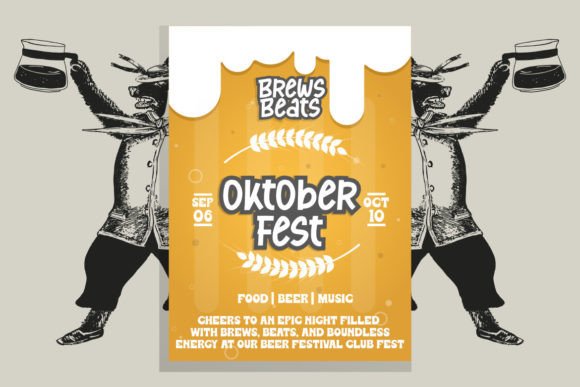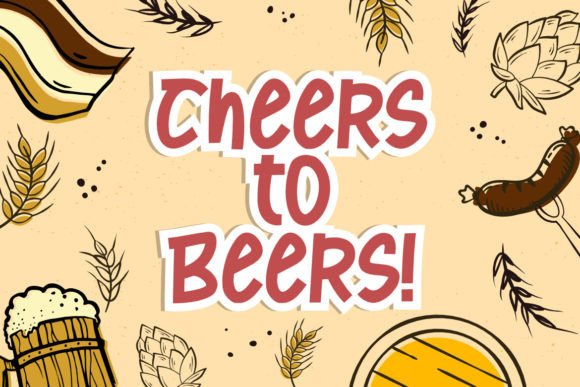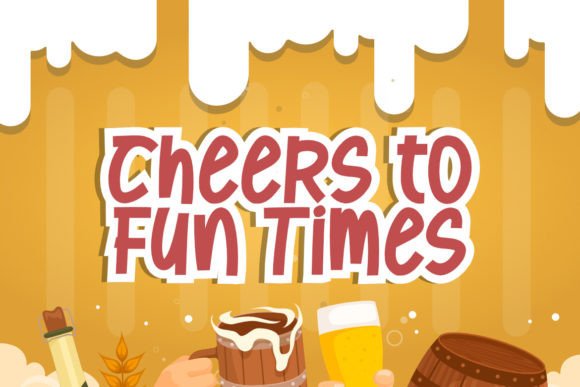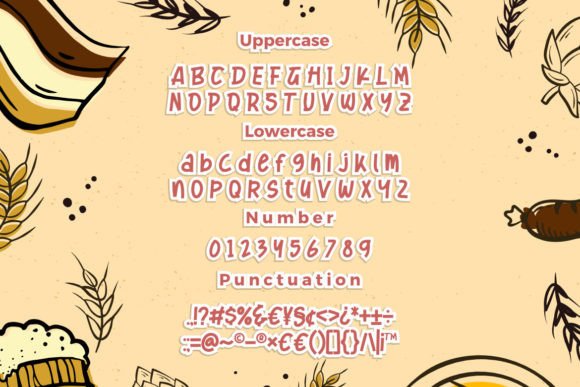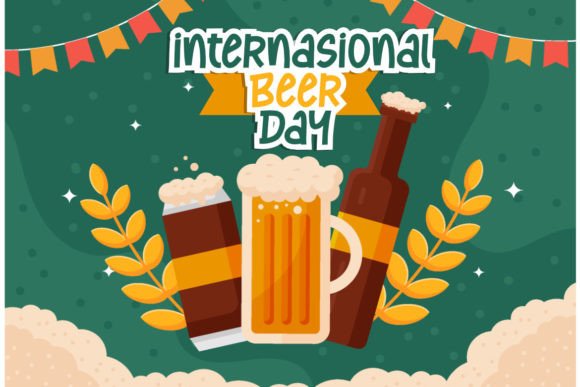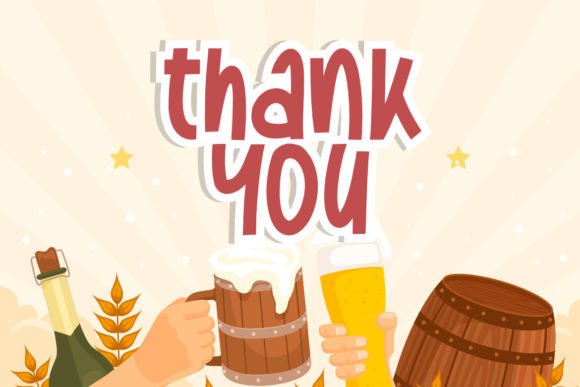
Introducing Beery Wisky Font: Add a Joyful Touch to Your Designs
Are you tired of using the same old fonts in your designs? Do you want to add a playful and quirky touch to your creative projects? Look no further than Beery Wisky Font! This cute and charming handwritten font is sure to bring a smile to your face and make your designs stand out from the crowd.
What is Beery Wisky Font?
Beery Wisky Font is a unique and eye-catching display font that is perfect for adding a touch of personality to your designs. With its playful and whimsical feel, this font is sure to capture the attention of your audience and leave a lasting impression. Whether you’re a designer, crafter, or DIY enthusiast, Beery Wisky Font is a great addition to your font collection.
Key Features of Beery Wisky Font
- Cute and Quirky: Beery Wisky Font has a playful and charming feel that’s perfect for adding a touch of personality to your designs.
- Handwritten: This font has a unique, handwritten feel that’s sure to add a personal touch to your creative projects.
- Display Font: Beery Wisky Font is a display font, making it perfect for headlines, titles, and other attention-grabbing elements in your designs.
- Easy to Read: Despite its playful feel, Beery Wisky Font is easy to read and understand, making it perfect for use in a variety of design applications.
How to Use Beery Wisky Font in Your Designs
Beery Wisky Font is a versatile font that can be used in a variety of design applications, including:
- Signs and Posters: Add a playful touch to your signs and posters with Beery Wisky Font.
- Social Media Graphics: Use Beery Wisky Font to add a personal touch to your social media graphics and make them stand out.
- Invitations and Party Decor: Beery Wisky Font is perfect for creating custom invitations and party decor that will add a touch of whimsy to your events.
- Crafting and DIY Projects: Add a personal touch to your crafting and DIY projects with Beery Wisky Font.
Tips for Getting the Most Out of Beery Wisky Font
Here are a few tips for getting the most out of Beery Wisky Font:
- Use it as a Headline Font: Beery Wisky Font is perfect for use as a headline font, where its playful feel can really shine.
- Pair it with Other Fonts: Experiment with pairing Beery Wisky Font with other fonts to create a unique and eye-catching look.
- Use it in Color: Beery Wisky Font looks great in color, so don’t be afraid to experiment with different colors and combinations.
Beery Wisky Font is a unique and charming handwritten font that’s perfect for adding a playful touch to your designs. With its cute and quirky feel, this font is sure to capture the attention of your audience and leave a lasting impression. Whether you’re a designer, crafter, or DIY enthusiast, Beery Wisky Font is a great addition to your font collection. So why wait? Download Beery Wisky Font today and start adding a joyful touch to your designs!